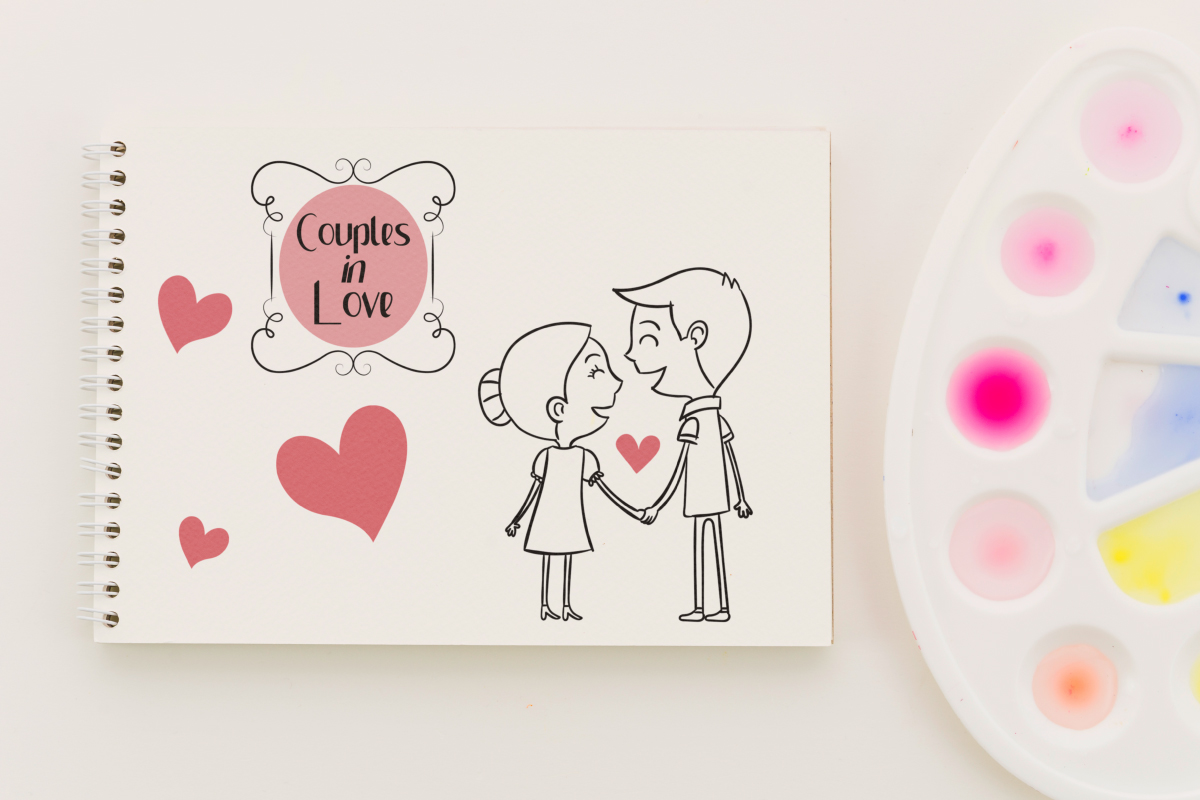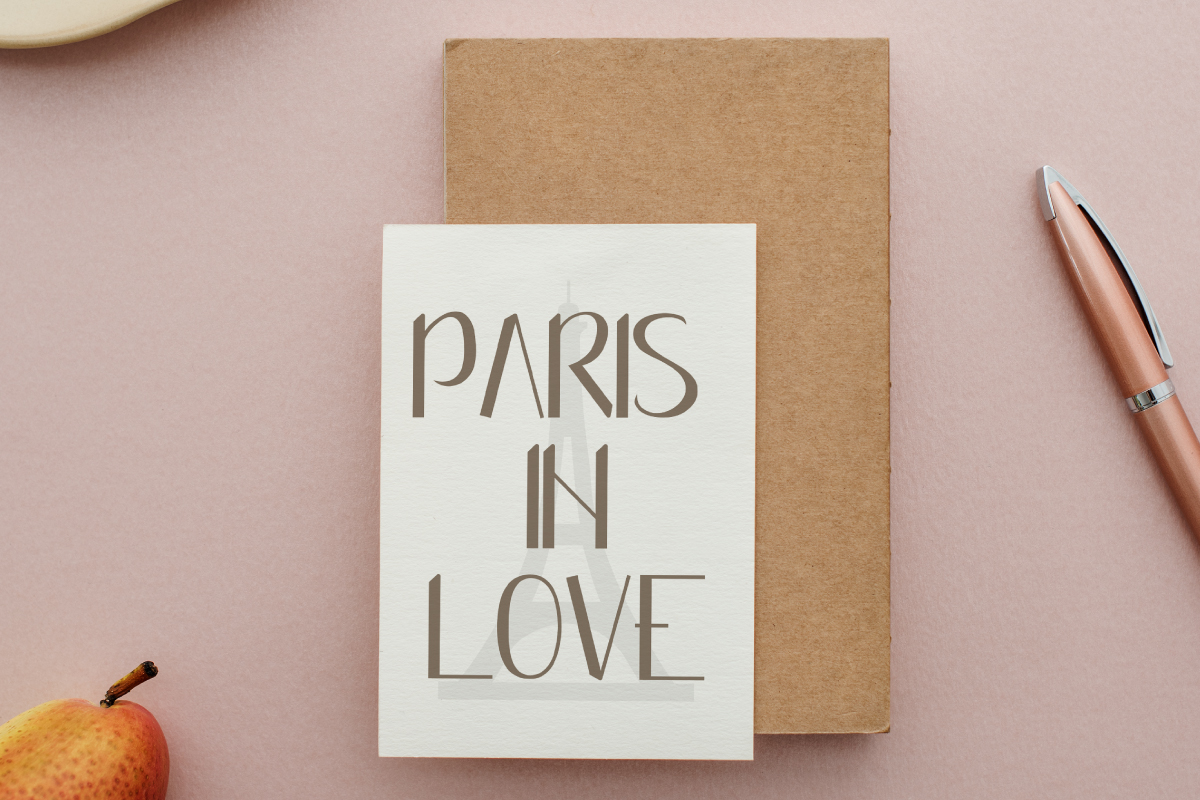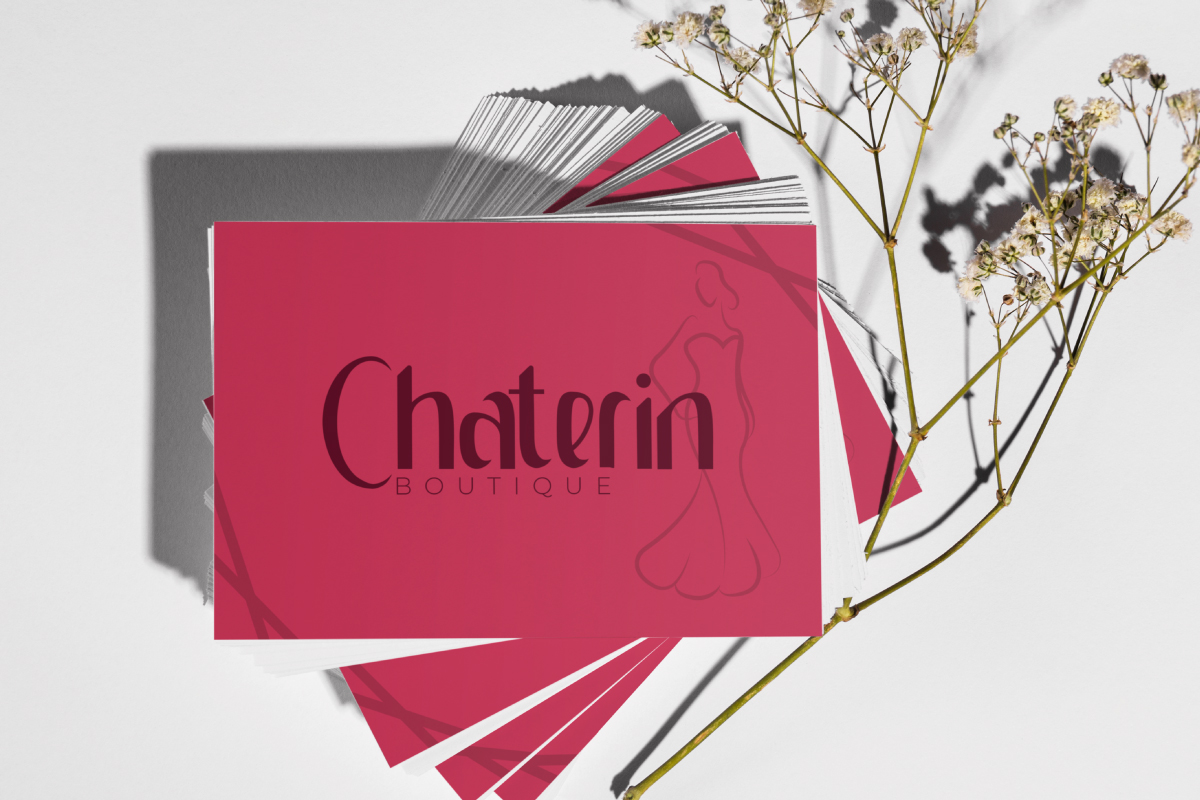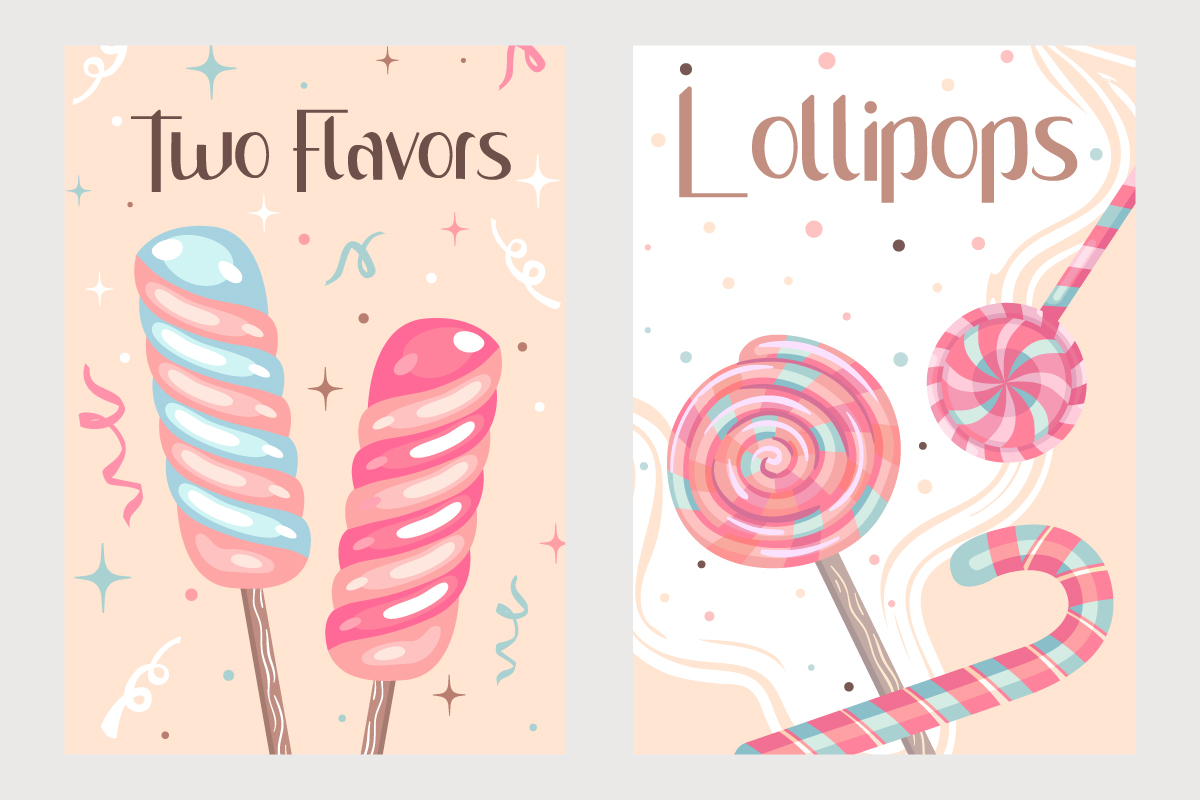
Simple Couple Font
Simple Couple Display Font
This is a sans serif display font. This font will be perfect for logo branding, lettering, products packaging, signage, title etc. This font uses a simple but attractive brush. There are many industries suitable for this font, such as: boutique, wedding, writers and who need a simple, clean and unique style